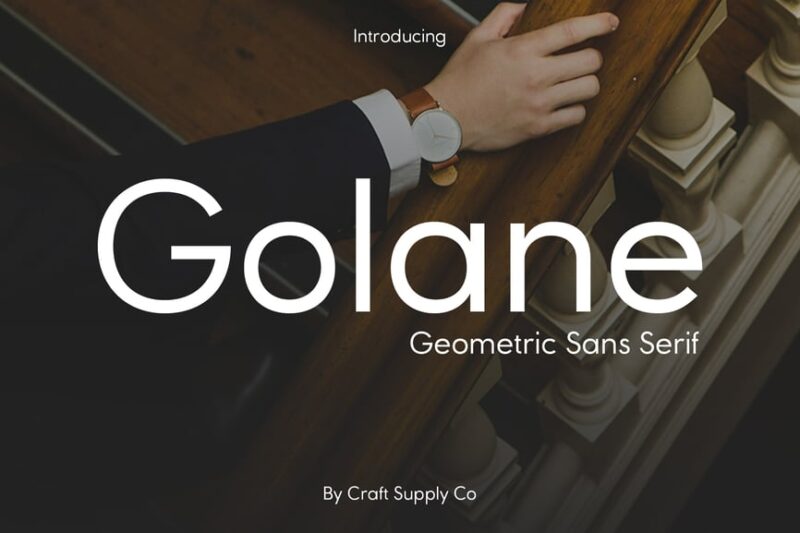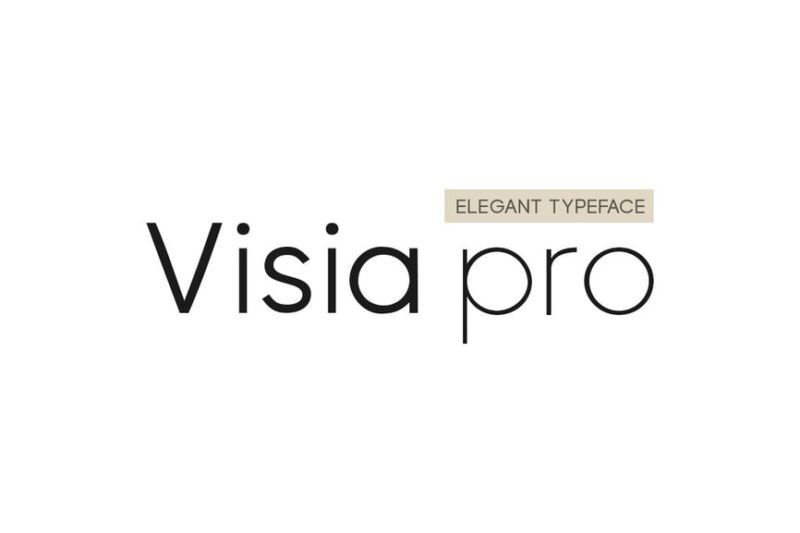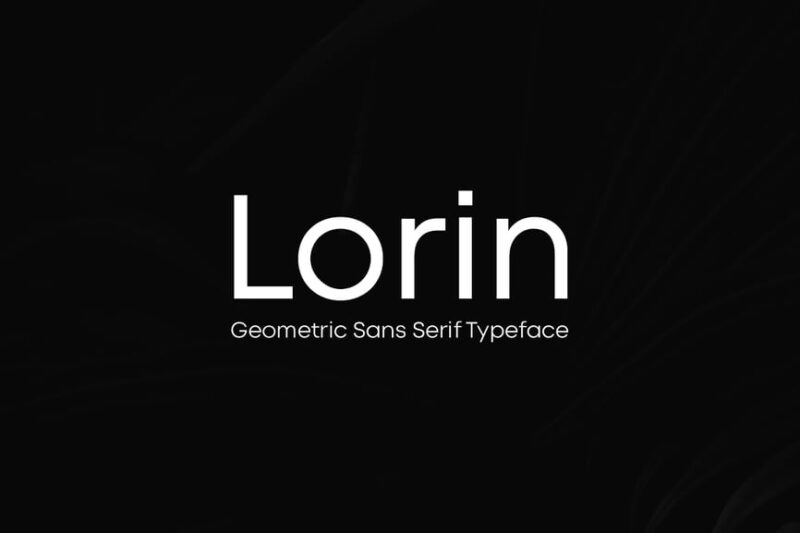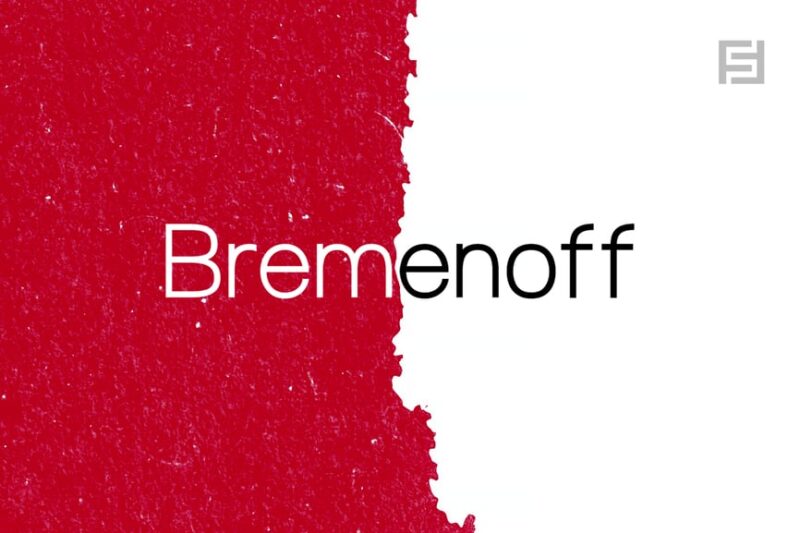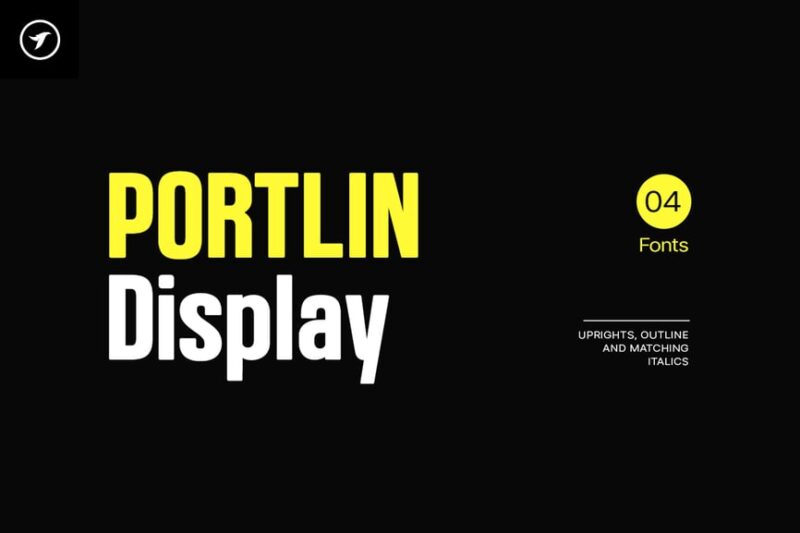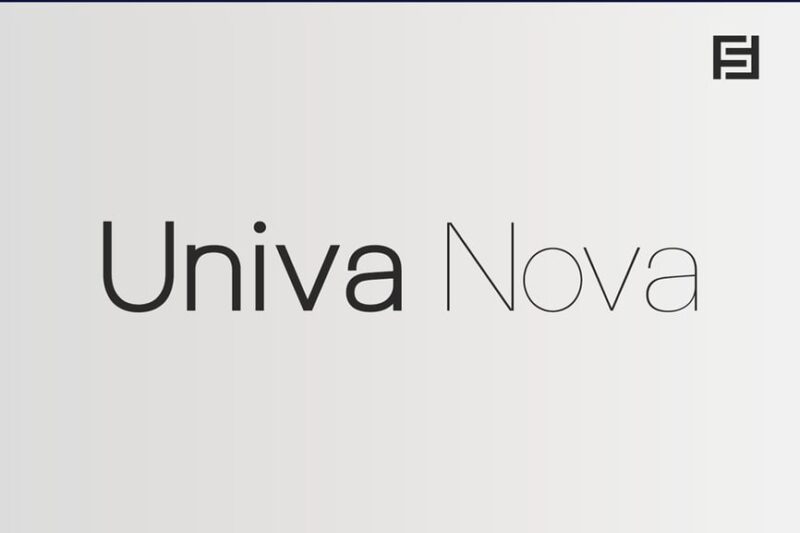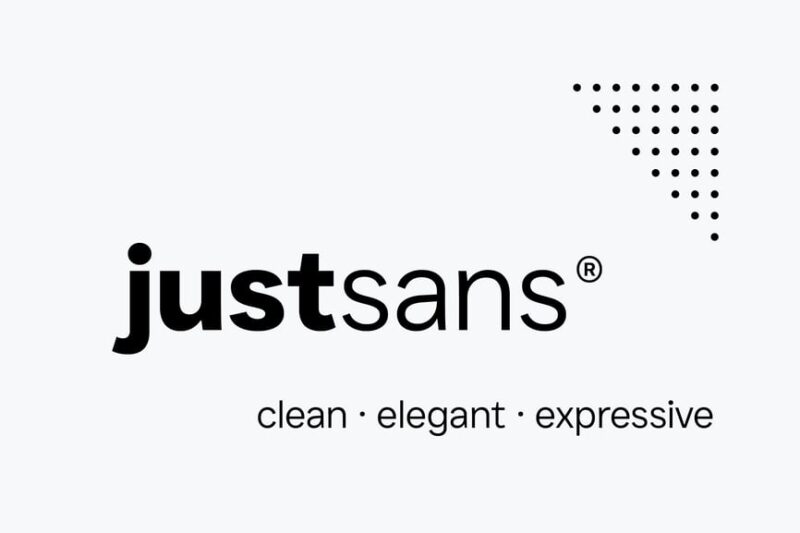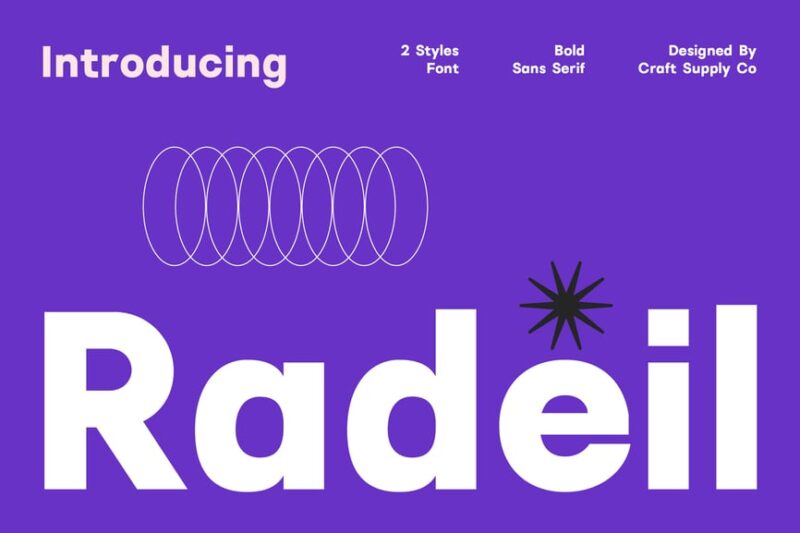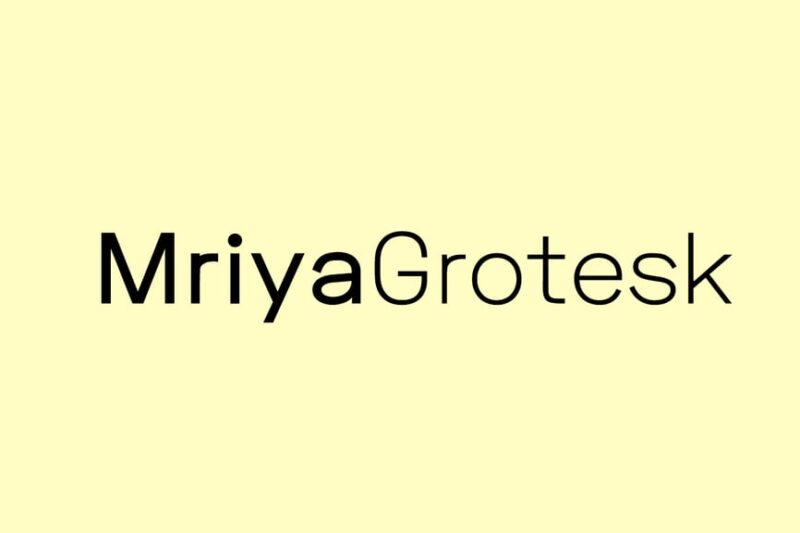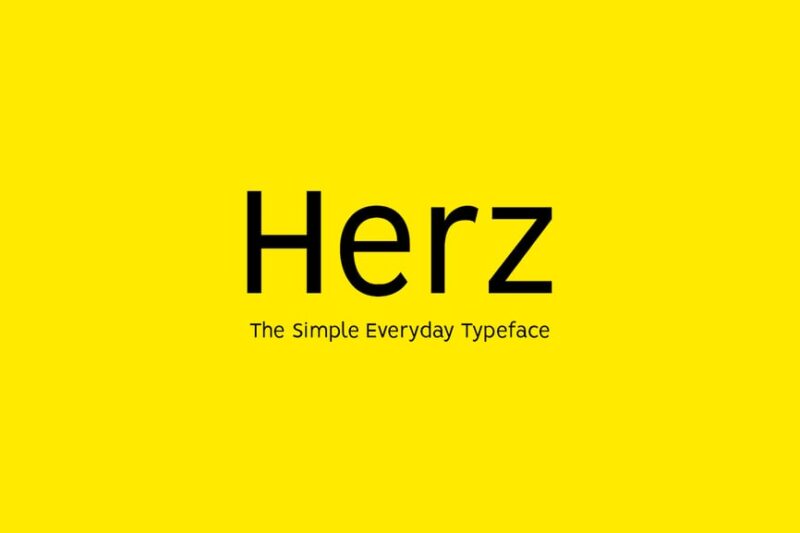
23 Fonts Similar to Helvetica for Reliable, Trustworthy Designs in 2026
Typography has a superpower: it can whisper, shout, or sing without making a sound. And in the vast universe of fonts, Helvetica has long been the cool, collected protagonist – the Steve Jobs of typefaces. But what happens when you want the same clean lines with just a hint of personality?
Welcome to the world of Helvetica-inspired fonts – where neutrality meets nuance, and design gets a subtle makeover.
The Helvetica Legacy: More Than Just a Font
Before we dive into our typographic treasure trove, let’s understand what makes Helvetica the design world’s eternal crush. Created in 1957 by Max Miedinger, this Swiss typeface redefined clarity. Its genius lies in absolute neutrality – a font so universal it can slide into any design context without breaking a sweat.
What Makes a Font Truly “Helvetica-Like”?
Typography experts agree: Helvetica-inspired fonts share some critical DNA:
• Consistent stroke weights
• Clean, minimal letterforms
• Excellent legibility at multiple sizes
• Sans-serif structure
• Professional, neutral aesthetic
23 Helvetica Alternatives That Bring the Heat
Golane – Geometric Sans Serif
Golane is a contemporary geometric sans serif that offers designers a versatile alternative for those seeking fonts similar to Helvetica with modern geometric precision. Its clean lines and balanced proportions make it ideal for branding and digital applications. The typeface combines traditional readability with contemporary styling, perfect for projects requiring a professional yet approachable aesthetic.
VISIA Pro – Elegant Geometric Typeface + Web Fonts
VISIA Pro - Elegant Geometric Typeface + Web Fonts
VISIA Pro presents an elegant geometric solution for designers exploring sophisticated alternatives to classic sans serif fonts similar to Helvetica. This professional typeface family combines refined geometric forms with exceptional legibility across both print and web mediums. Its elegant proportions and comprehensive character set make it an excellent choice for premium branding and professional logo design.
LORIN – Modern Geometric Typeface + Web Fonts
LORIN - Modern Geometric Typeface + Web Fonts
LORIN delivers a minimal modern approach to geometric typography, offering designers a contemporary option when searching for Helvetica-style fonts with enhanced geometric precision. Its clean, minimal aesthetic perfectly balances modern design trends with timeless readability. The font’s versatile character makes it suitable for both digital interfaces and print applications requiring a sophisticated, uncluttered appearance.
BERLIN – Minimal Sans-Serif Typeface + Web Font
BERLIN - Minimal Sans-Serif Typeface + Web Font
BERLIN embodies brutal minimalism while maintaining the essential qualities found in fonts similar to Helvetica, making it perfect for contemporary design projects. This minimal sans-serif typeface strips away unnecessary elements to create powerful, direct communication through typography. Its stark, uncompromising aesthetic makes it ideal for modern branding that demands attention through simplicity.
Bremenoff – Simple & Timeless Typeface
Bremenoff - Simple & Timeless Typeface
Bremenoff offers a simple and timeless approach to sans serif design, providing designers with a calm alternative to traditional Helvetica-inspired fonts. Its understated elegance and balanced proportions make it exceptionally suitable for logo design and brand identity work. The font’s timeless quality ensures longevity in design applications while maintaining excellent readability across various media.
Portlin – Modern Display / Headline Font
Portlin - Modern Display / Headline Font
Portlin serves as a modern display font that builds upon the foundation of classic fonts similar to Helvetica while adding contemporary bold styling for headline impact. Its robust character and modern aesthetic make it perfect for attention-grabbing headlines and display typography. The font combines readability with visual impact, making it ideal for modern branding that needs to make a strong statement.
Helixa – Clean and Modern Sans-Serif Typeface
Helixa - Clean and Modern Sans-Serif Typeface
Helixa presents a clean and modern interpretation of classic sans serif typography, offering designers a refined alternative to standard Helvetica-style fonts. Its minimal modern aesthetic combines exceptional clarity with contemporary design sensibilities. The font’s clean lines and balanced spacing make it particularly effective for digital applications and modern branding projects requiring sophisticated typography.
Univa Nova – Minimalist Typeface with Clean Design